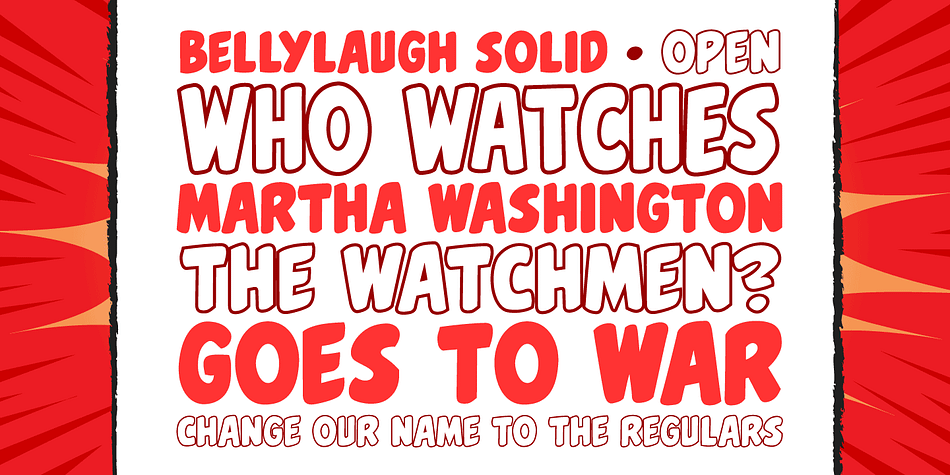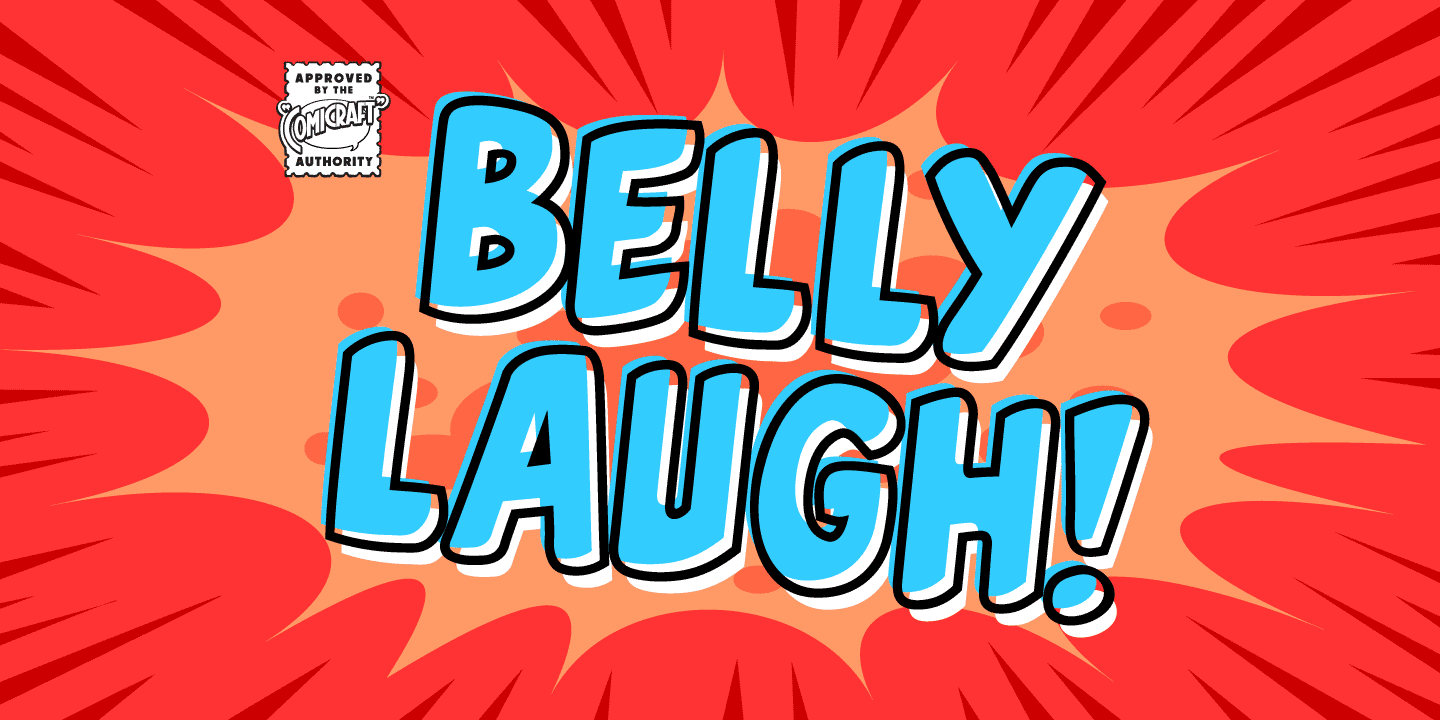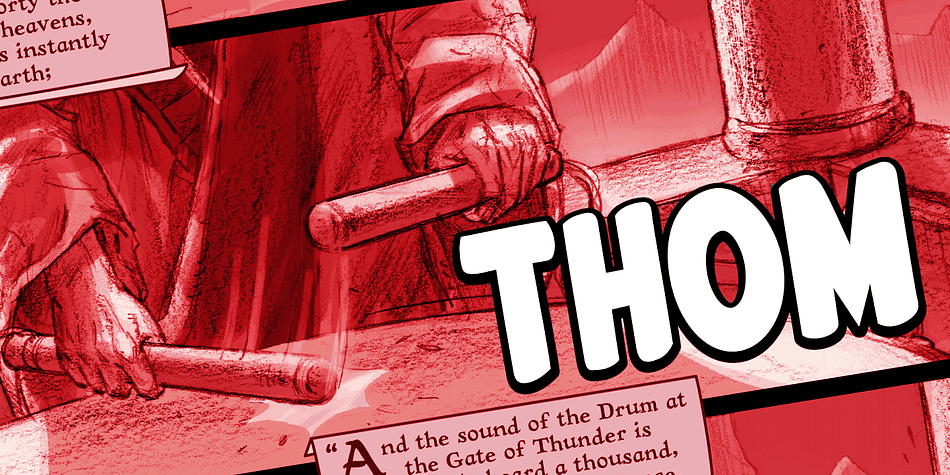
Designed by John Roshell and David Gibbons, Belly Laugh is a comic and hand display font family. This typeface has two styles and was published by Comicraft.
When we asked Dave Gibbons to name the typestyle he created for the sound effects in GIVE ME LIBERTY, he must’ve thought we were kidding. So we humored him, and now you can get in on the joke when you use BELLY LAUGH.